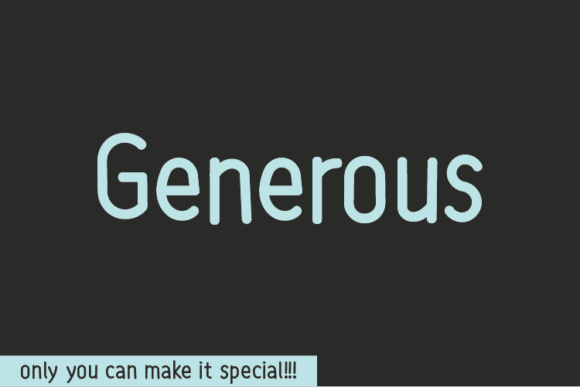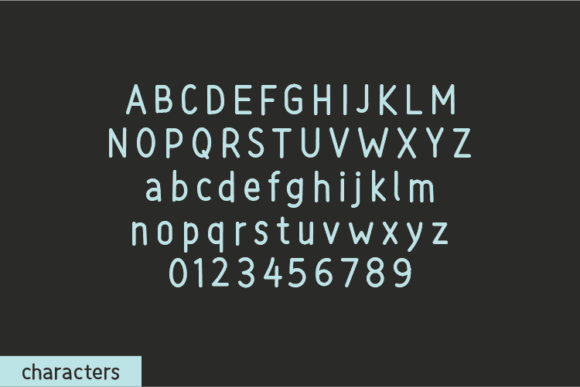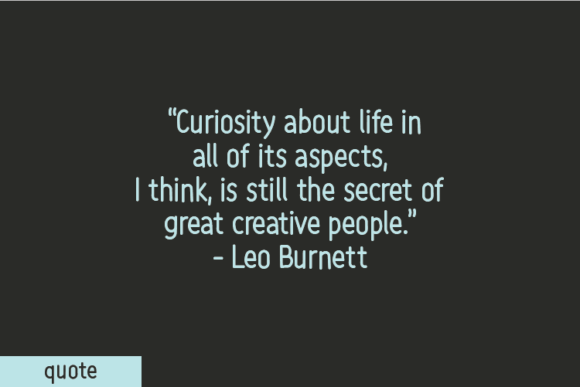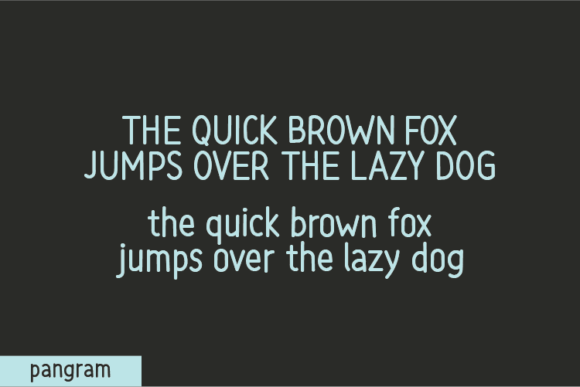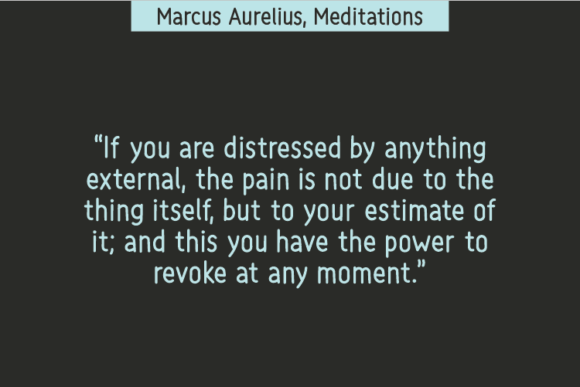
Generous Font
About Generous Font
The Generous Font Download is a natural handwritten typeface created with authenticity and uniqueness in mind. What makes this font stand out is its design method—crafted without altering a single node in each character’s indentation. This process preserves the natural beauty of handwritten strokes, giving Generous an unpolished yet stylish character that feels raw, organic, and truly original.
Its casual charm makes it the perfect choice for projects that require a personal and handcrafted look. Whether you’re designing quotes, notes, apparel, packaging, or posters, Generous adds authenticity and individuality to your typography. It carries the warmth of real handwriting while still being clean and versatile enough for professional use.
Features of Generous Font
• Natural handwritten style created without node changes
• Raw, authentic character flow for a handcrafted aesthetic
• Complete character set with uppercase, lowercase, numerals, and punctuation
• Readable yet artistic strokes that adapt well to multiple formats
• Versatility across print and digital projects
Best Uses for Generous Font
The Generous Font Download is highly adaptable and works beautifully across many design scenarios, such as:
• Quotes and social media posts – Add authenticity and personality to inspirational text
• T-shirt and apparel design – Perfect for casual clothing, tote bags, or merchandise
• Stationery and notes – Enhance greeting cards, journals, and planners with a handwritten vibe
• Product packaging and labels – Great for artisanal, organic, or handmade goods
• Posters and flyers – Eye-catching typography for events or promotional campaigns
• Logos and branding – Build unique and memorable identities for creative brands
• DIY projects and crafts – A charming option for scrapbooks, crafts, and personal creations
Why Choose Generous Font
The Generous Font Download is special because it values authenticity over polish. By leaving each character’s indentation untouched, it brings a sense of natural imperfection that feels warm and approachable. This makes it especially appealing for brands and creators who want their work to feel personal and real.
Designers love Generous for its distinctive personality and usability. It’s easy to read yet filled with creative charm, bridging the gap between casual and professional typography. Its originality ensures your designs won’t look generic but instead carry a memorable handcrafted touch.
The Generous Font Download is a unique handwritten typeface that celebrates authenticity and creativity. With its raw strokes, handcrafted appeal, and wide versatility, it’s perfect for quotes, apparel, packaging, posters, stationery, and much more.